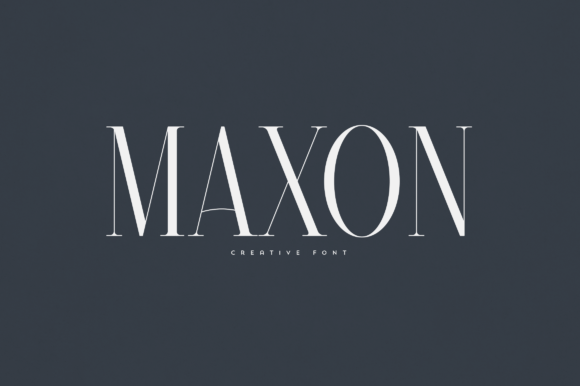
Unleash your creativity with Maxon, the serif font that will transform your designs into masterpieces! Experience the elegance and versatility of this captivating typeface, meticulously crafted to elevate your typography to new heights.
Step into a world of limitless possibilities where Maxon's graceful curves and sharp angles dance in perfect harmony. With its timeless appeal, this font effortlessly adds a touch of sophistication to any project, from logos that demand attention to headlines that command respect.
Whether you're crafting a striking brand identity or infusing your home décor with a touch of timeless charm, Maxon is your perfect companion. Its versatility knows no bounds, making it the ideal choice for product packaging that captivates or magazine headers that leave a lasting impression.
Imagine your words dancing across a canvas of pure elegance, each letter a work of art that conveys your message with undeniable impact. Maxon's versatility extends to plain text, where it transforms ordinary words into captivating narratives that draw readers in and leave them spellbound.
Don't settle for ordinary fonts; embrace the extraordinary with Maxon. Its timeless beauty and modern appeal make it the perfect choice for any project that demands attention and inspires admiration. Let Maxon be your guiding light, illuminating your designs and leaving an unforgettable impression on all who behold them.